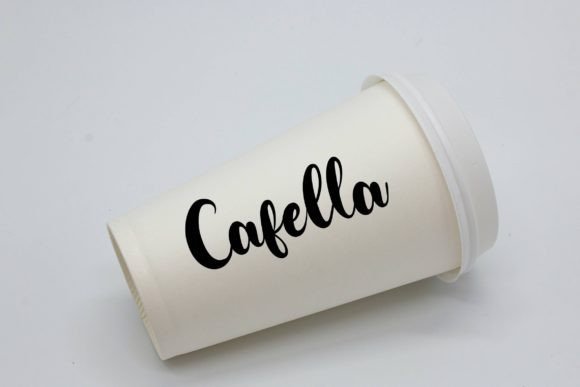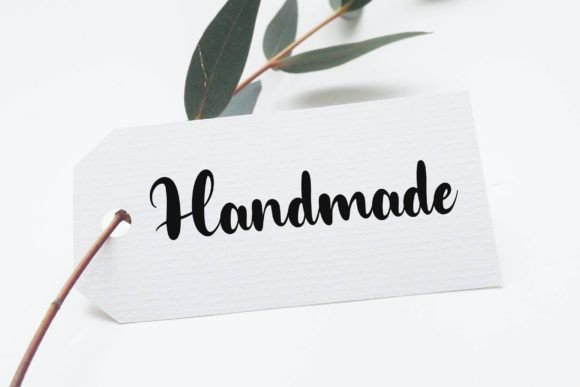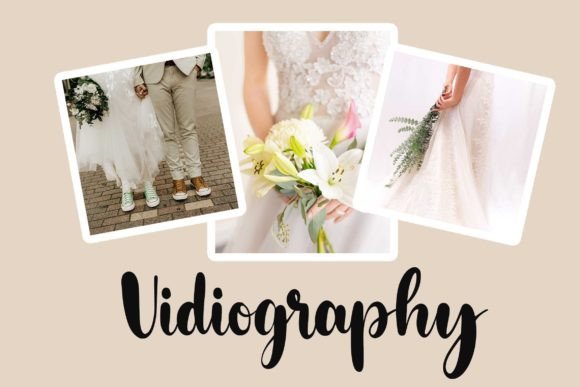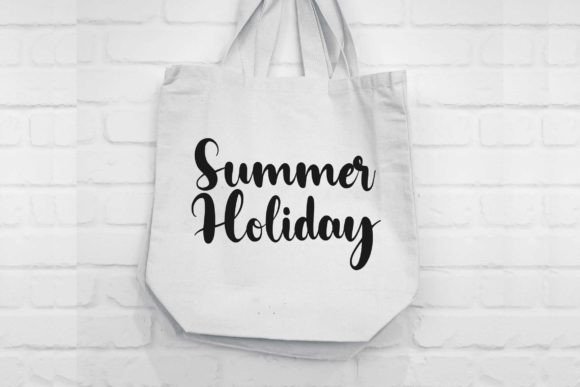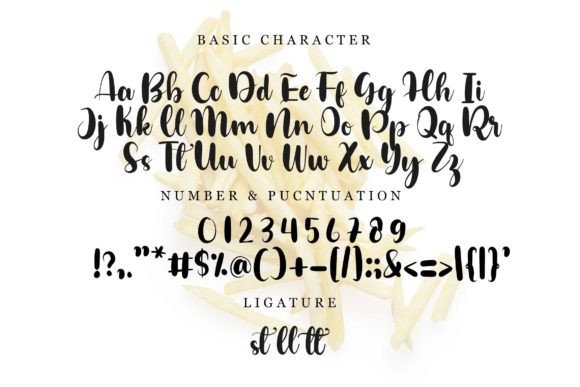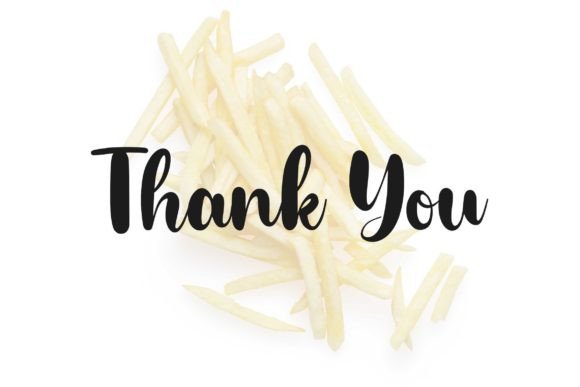
Potato Font
About Potato Font
“Potato” is a font that stands out for its simplicity and versatility. Its straightforward, handwritten style has won the hearts of many, making it a popular choice among designers and creatives. The charm of “Potato” lies in its uncomplicated elegance, making it an excellent option for those seeking a font that is both simple and adaptable.
One of the key strengths of “Potato” is its ability to cater to a wide audience. Its minimalistic design makes it appealing to various tastes and preferences. Whether you’re designing for a formal occasion or a casual event, “Potato” seamlessly adapts, adding a touch of understated elegance to your projects.
Wedding invitations, a pivotal part of any wedding celebration, are beautifully enhanced with the use of “Potato.” Its simplicity imparts a sense of sophistication to the invitations, setting the tone for a memorable event. The font’s handwritten charm adds a personal touch, making the invitations not just pieces of paper but heartfelt expressions of love and celebration.
In the realm of stationery art, “Potato” becomes a canvas for creativity. Its simplicity allows other design elements to shine, making it a perfect backdrop for artistic expressions. Whether you’re designing greeting cards, posters, or artwork, this font enhances the visual appeal of your creations, adding a touch of grace without overwhelming the overall design.
For social media posts, “Potato” offers a clean and uncluttered aesthetic. Its simplicity ensures that your message takes center stage, capturing the attention of your audience without distractions. Whether you’re sharing quotes, announcements, or promotional content, this font enhances the readability and visual appeal of your posts, making them more engaging and shareable.
The versatility of “Potato” extends beyond specific contexts. Its simple and unpretentious style makes it suitable for a wide range of applications, including product packaging, branding, blog headers, and more. Whether you’re designing a logo for a minimalist brand or creating labels for products, this font adds a touch of elegance and readability to your designs.
In summary, “Potato” is a font that embodies the beauty of simplicity. Its versatility and adaptability make it a favorite among designers, allowing them to create visually appealing and elegant designs without unnecessary complexities. So, whether you’re crafting wedding invitations, stationery art, social media posts, or any other creative project, “Potato” is the perfect choice for those who appreciate the beauty of simplicity and the power of versatile design.